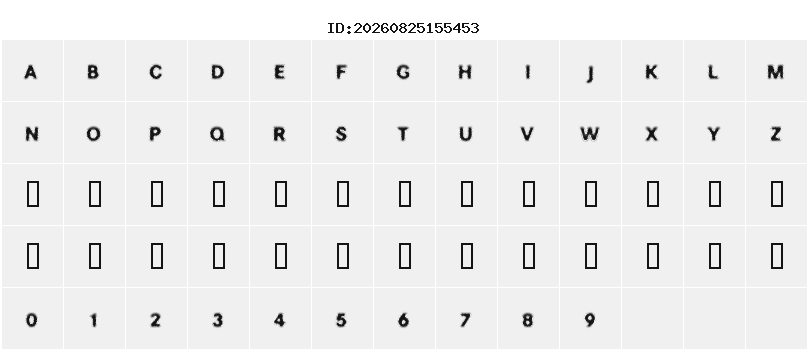
• Font Name: SOAK
• Font Style: SOAK
• Full Font Name: SOAK
• Designer: SAJI JOHNNY KUNDUKULAM
About SOAK.ttf
SOAK.ttf is a modern, elegant sans-serif font designed for ultimate readability and visual harmony. Perfect for branding, headlines, web design, and print materials.